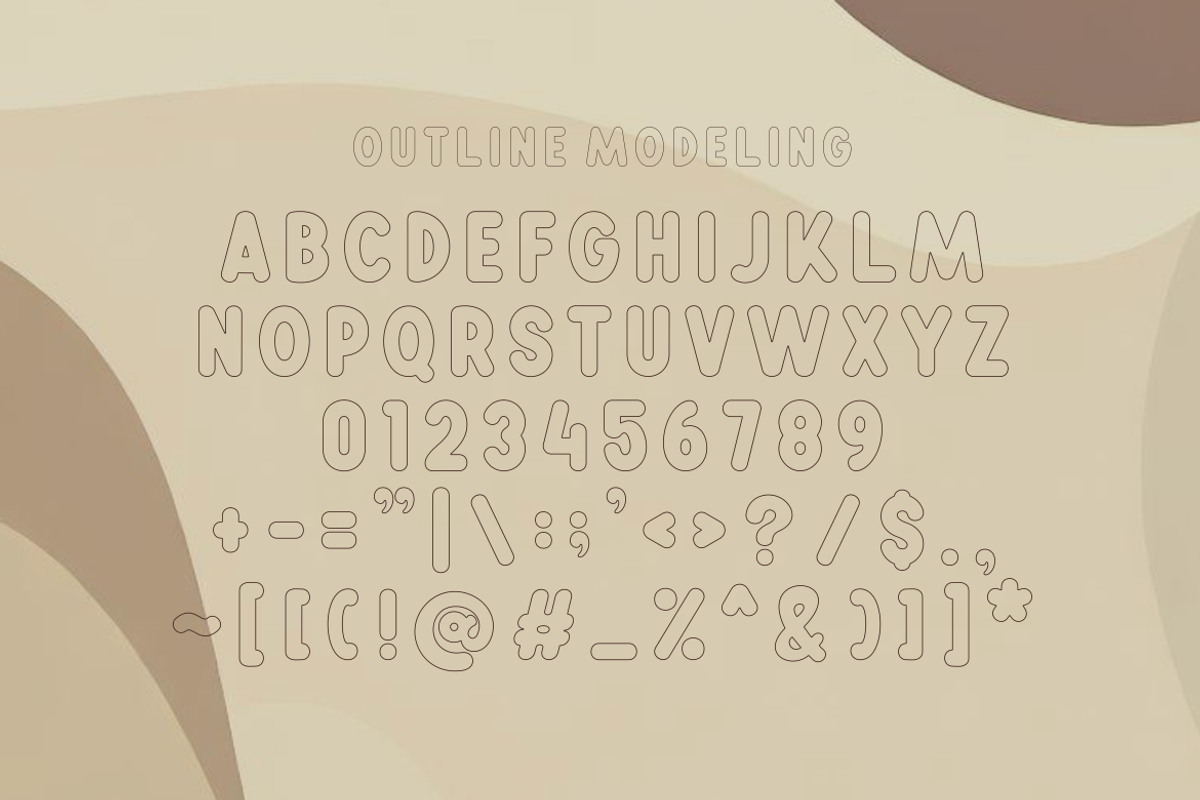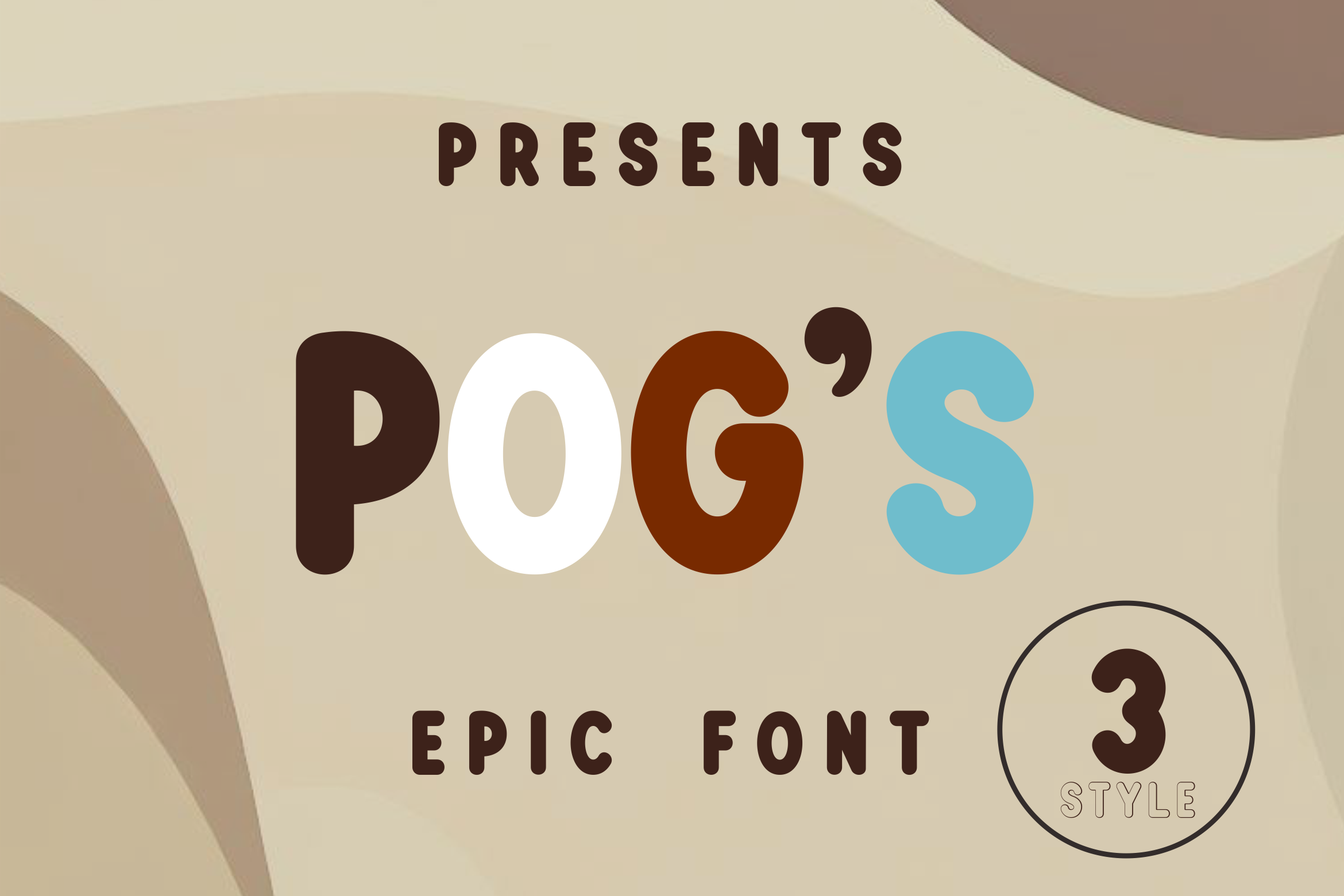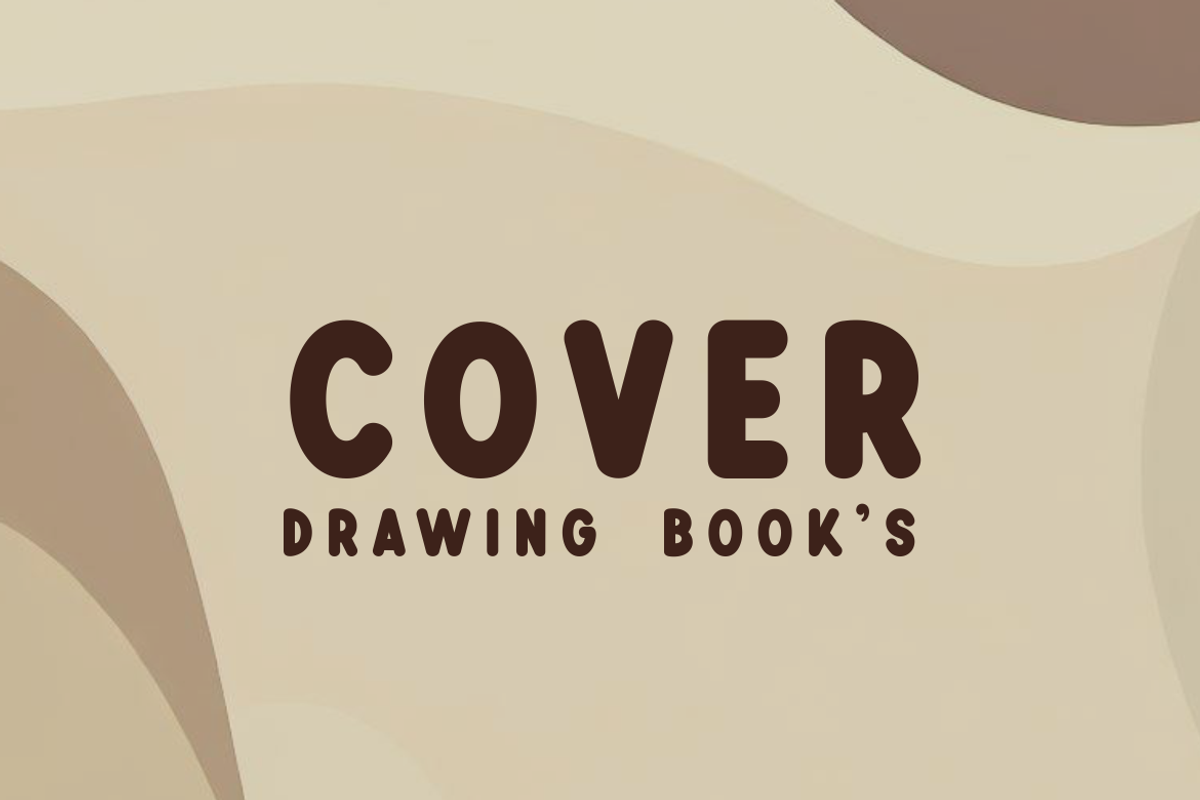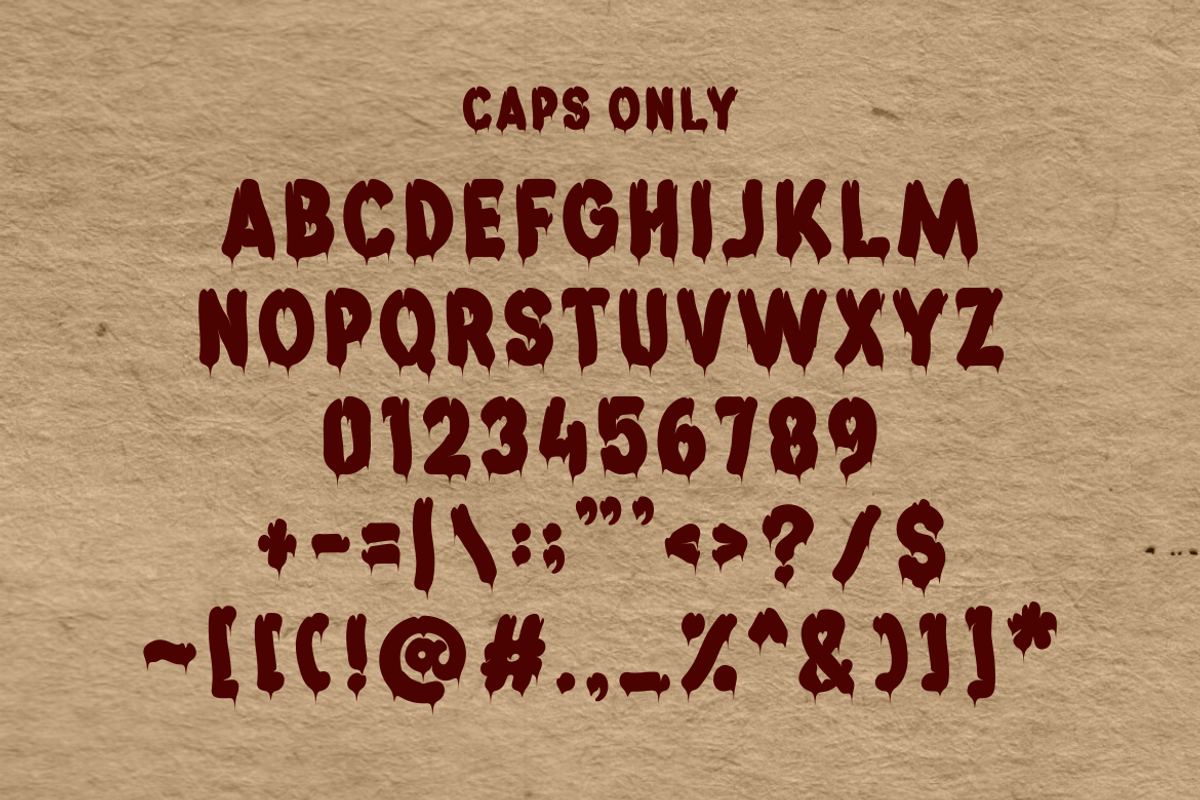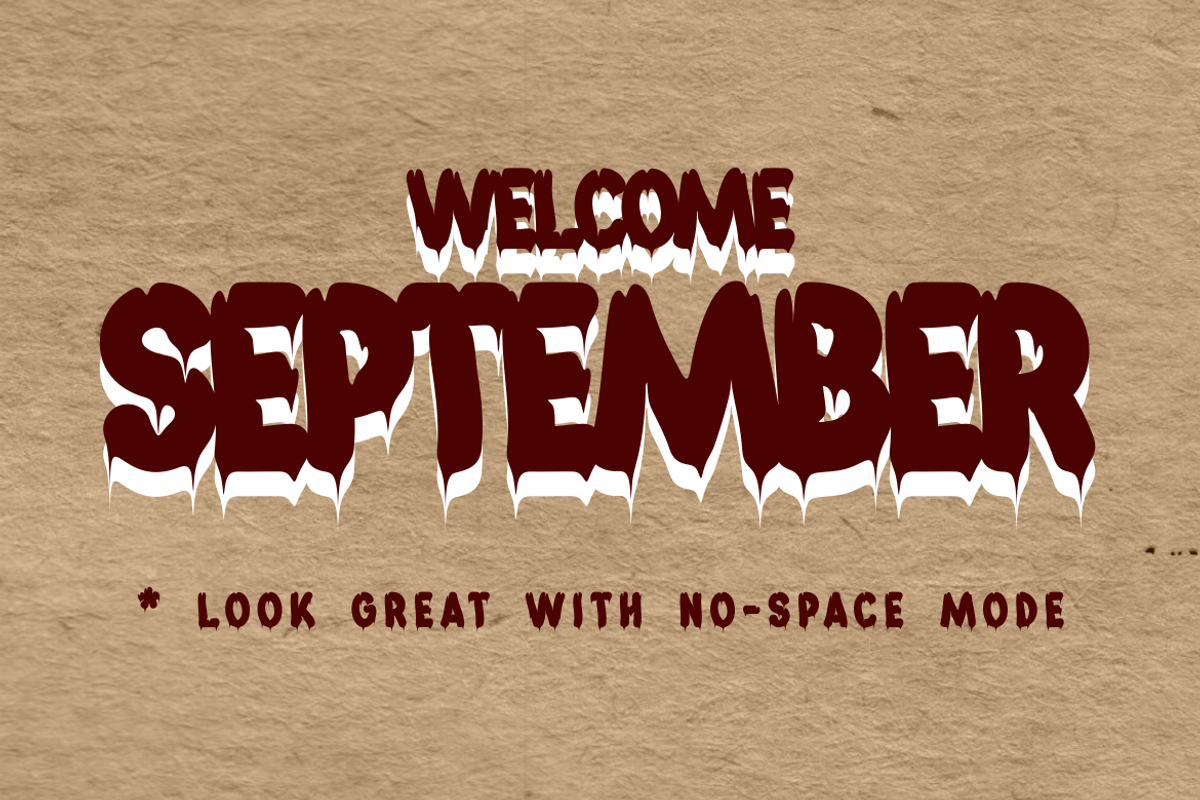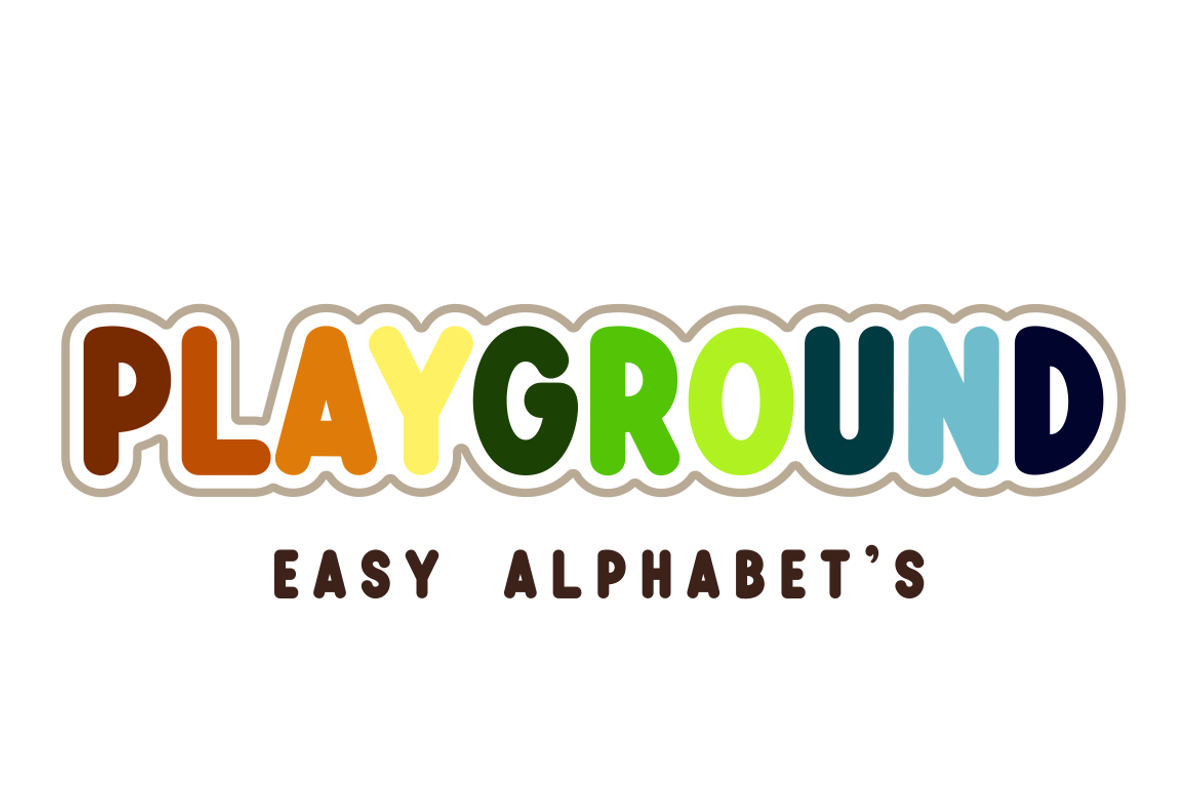
Pog's Font 4 Style
Matching fonts combined with colorful colors. easy alphabets, meet the needs of children's creations, covers and books. not apart from that, use in other conditions can also be done, considering that it is equipped with 4 different styles.
Normal Outline Shadow models blooding edition